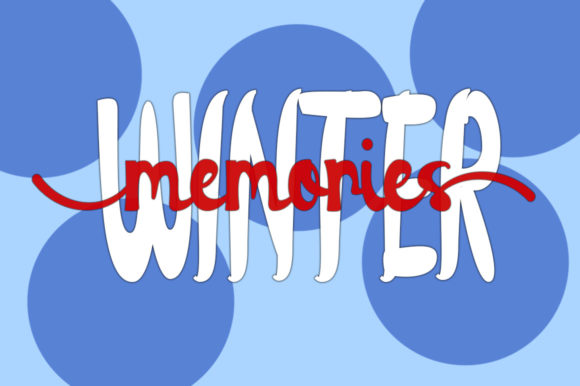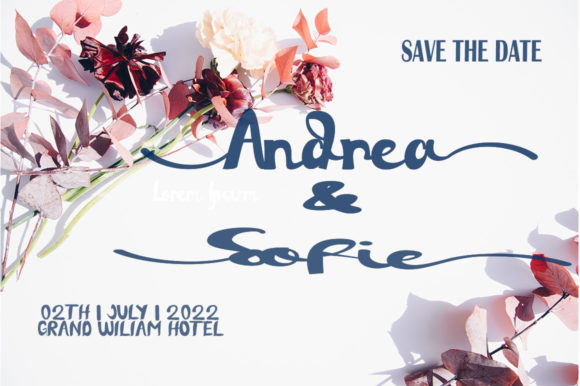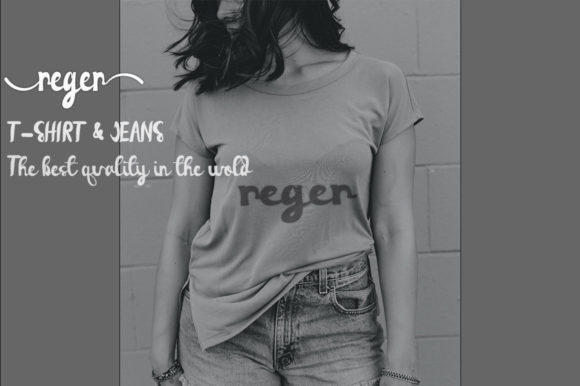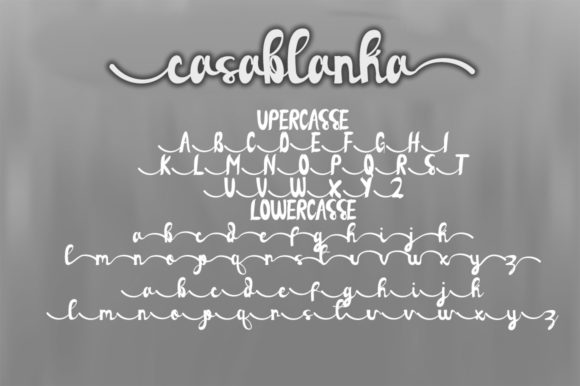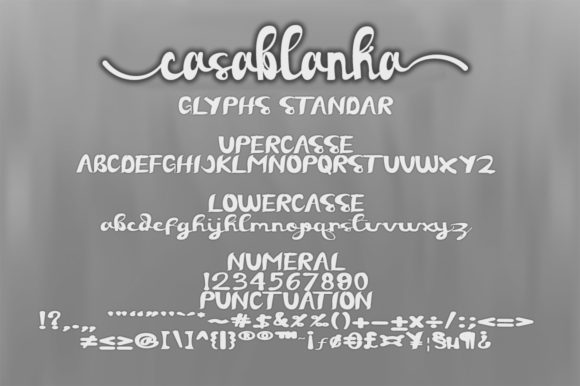
Get Ready to Fall in Love with the Casablanka Font
As a designer, you know that the perfect font can make all the difference between a good design and a great one. And then there are those magical moments when you stumble upon a font that just feels like home – the characters seem to dance along the baseline, and you can’t help but smile. That’s exactly what happened when I discovered the Casablanka Font.
This lovely script font is designed to add a touch of whimsy and playfulness to your designs, making it perfect for branding, invitations, and other creative projects where you want to stand out from the crowd. With its PUA encoding, you can access all the glyphs and swashes with ease, giving you endless possibilities for customization.
- Unique Characteristics: Casablanka Font features a unique blend of classic and modern design elements, with intricate details and subtle flair, making it suitable for high-end designs and luxury branding.
- Kerning and Ligatures: The font includes advanced kerning and ligature pairs, ensuring smooth text flow and professional-looking typography.
Casablanka Font Review
I recently had the chance to work with the Casablanka font, and I must say it’s a unique and stylish addition to any design project. ✨ The font’s blend of modern and vintage elements makes it perfect for creating a sophisticated and elegant look.
Here are some of the things that work well with the Casablanka font:
- ✨ Elegant and refined design, perfect for luxury brands
- ✨ Highly legible, even at smaller font sizes
- ✨ Great for creating a sense of sophistication and refinement
- ⚠️ Limited character set, may not be suitable for projects that require a wide range of characters
- ⚠️ May not be the best choice for projects that require a lot of bold or italic text
- ⚠️ Can be difficult to read at very small font sizes
Overall, I’m quite impressed with the Casablanka font. While it may have some limitations, its unique design and high legibility make it a great choice for the right projects. With a little creativity and planning, the Casablanka font can be a real showstopper.
Casablanka Font is perfect for creating elegant and sophisticated designs. Use it for:
– Luxury branding and packaging
– High-end fashion and beauty design
– Any design that requires a touch of sophistication and elegance.
Alternatives to Casablanka Font
Playfair Display is an elegant, high-end serif font ideal for luxurious branding, magazine covers, and high-end packaging. Its refined lines and ornate details make it a suitable replacement for Casablanka Font in upscale projects.
Comparison: Playfair Display has a more refined and luxurious feel compared to Casablanka Font, which has a more vintage and eclectic vibe.
Great Vibes is a modern script font that works well for creative, playful, and energetic projects. Its fluid lines and dynamic feel make it a great alternative to Casablanka Font in branding, advertising, and digital media.
Comparison: Great Vibes has a more modern and dynamic feel compared to Casablanka Font, which has a more vintage and eclectic vibe.